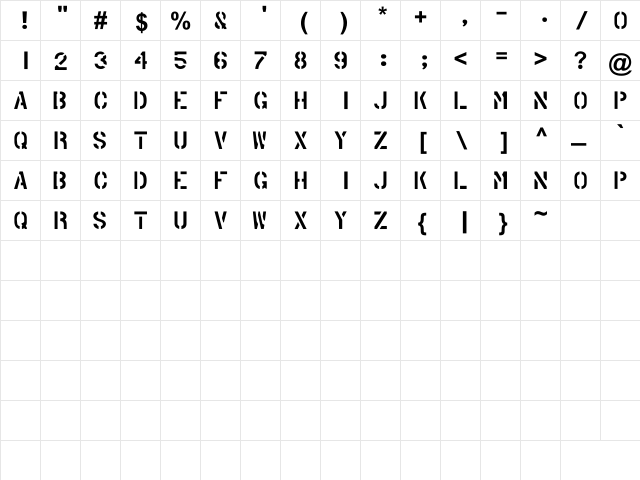
PHANTOM STENCIL Font Preview
PHANTOM STENCIL Font Details
Design Context for PHANTOM STENCIL Typeface
PHANTOM STENCIL has the rough pragmatism of spray-painted stencil signage, adding a raw, street-level authenticity to designs.
Ideal for industrial branding, streetwear, military-adjacent aesthetics, and urban signage projects.
Pro Tip: Pair PHANTOM STENCIL with raw, utilitarian design elements — exposed concrete textures, flat colour, and minimal ornamentation suit it well.